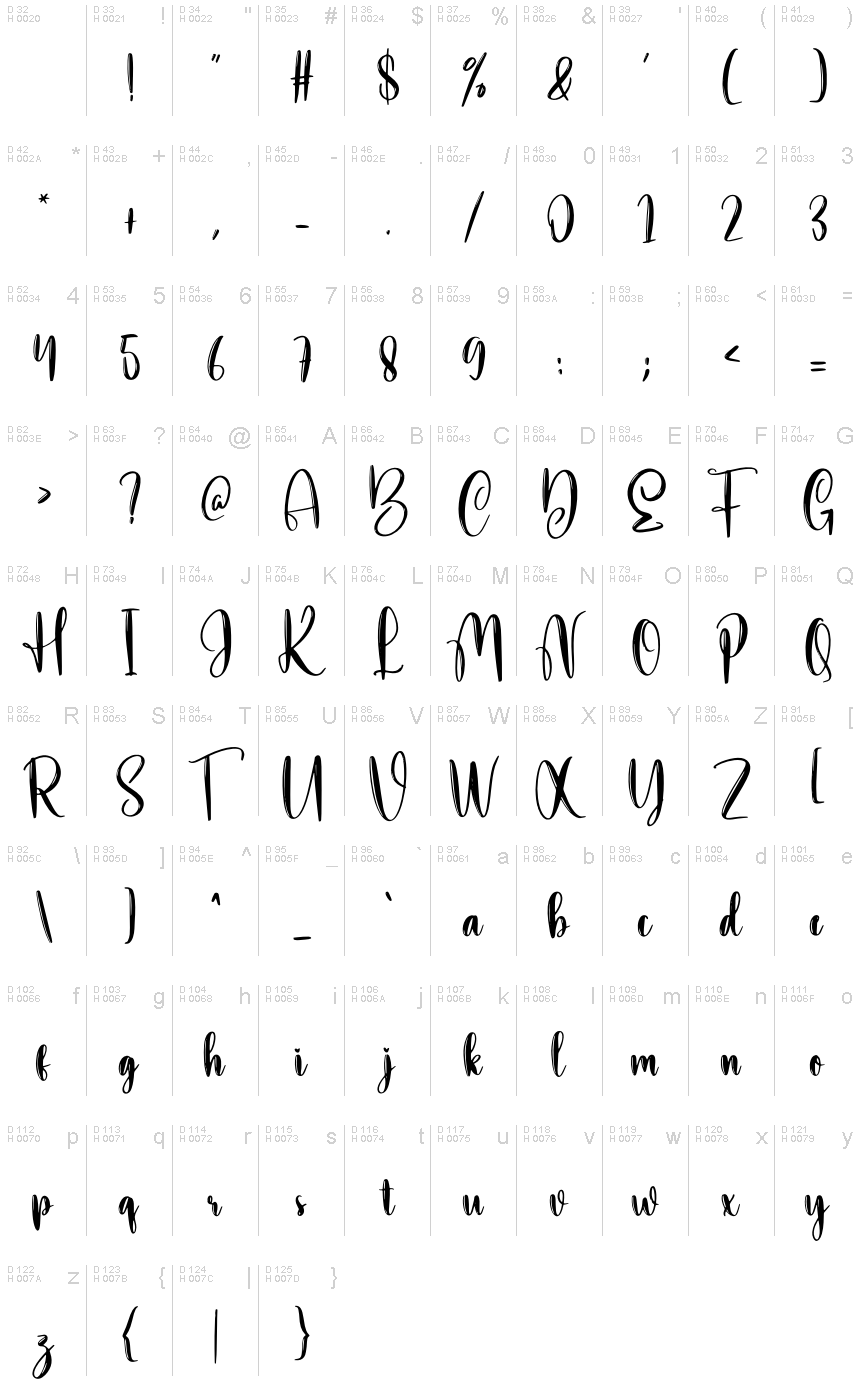
Building
The Building font, crafted by the talented Scratchones, exudes a captivating brush-like elegance that captivates the viewer. Its dynamic, flowing strokes convey a sense of movement and energy, making it a compelling choice for projects seeking a striking, artistic aesthetic. The font's organic, handcrafted appearance lends a unique character that effortlessly blends the traditional and the contemporary, creating a visually arresting and memorable impression.
The Building font's versatility allows it to shine across a wide range of design applications, from bold headlines and impactful logotypes to alluring branding and packaging elements. Its distinctive style can elevate the visual appeal of any project, whether it's a modern e-commerce website, a chic editorial layout, or a cutting-edge marketing campaign. The font's ability to command attention and evoke a sense of artistry makes it a valuable asset for designers seeking to create lasting impressions and memorable brand identities.